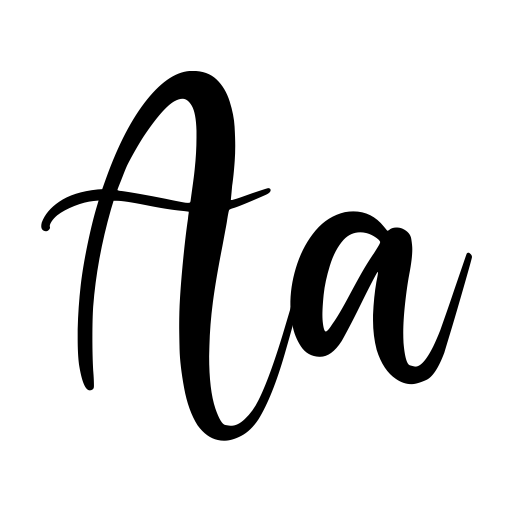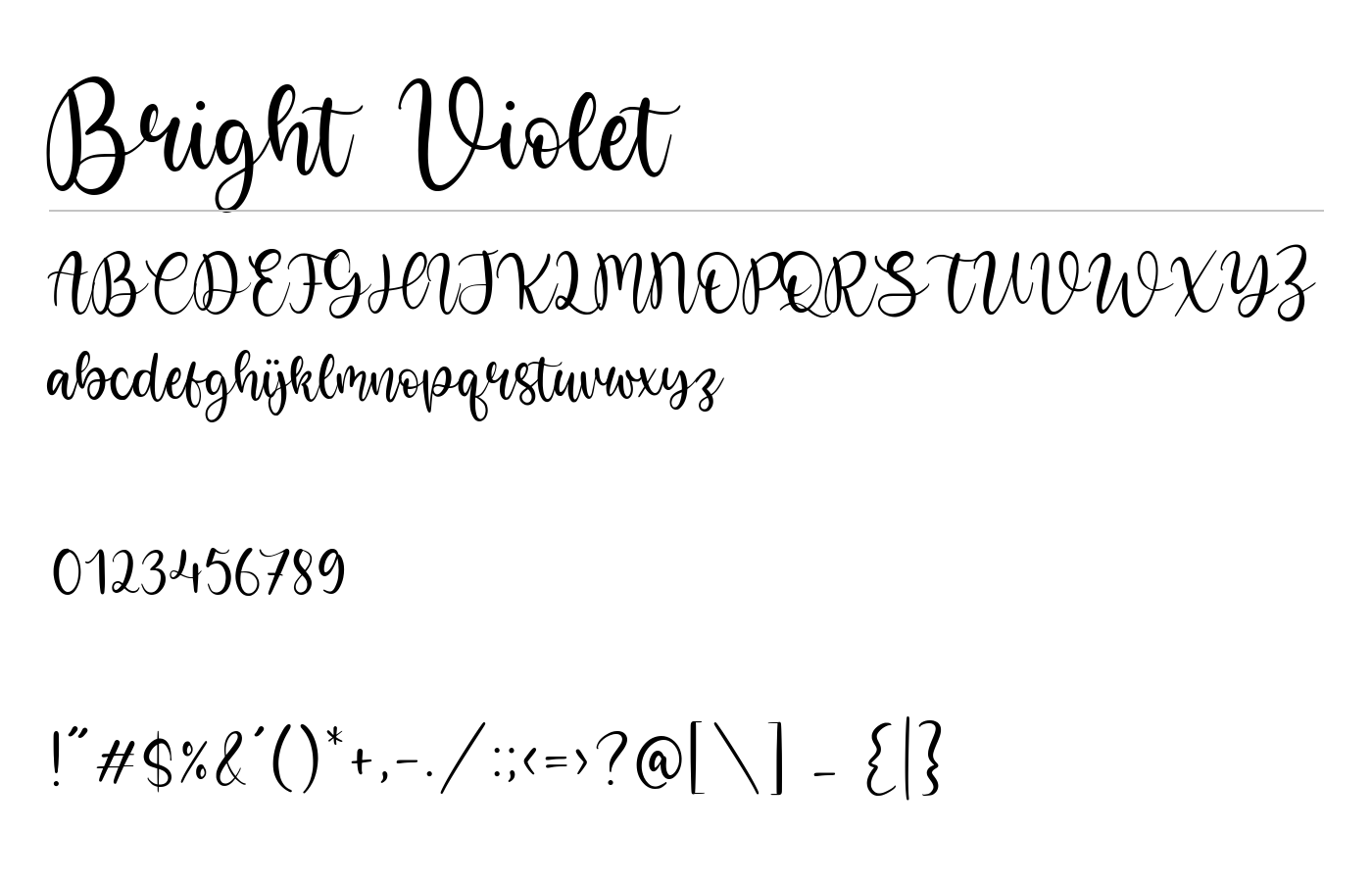
Bright Violet is a charming script font with smooth, flowing strokes and a playful yet elegant character. Its medium weight and moderate contrast give it warmth and readability, making it ideal for creative branding, invitations, or feminine designs that require a handwritten touch. This font works beautifully for logos, headlines, and decorative text where a stylish, personal feel is desired.
Bright Violet Font
About Bright Violet Font